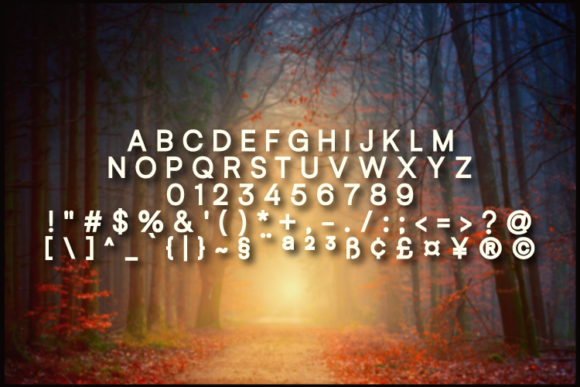
Introduction to Leonare Extra Bold Font
There’s nothing quite like the thrill of finally landing on the perfect font for your creative project. The one that makes your design shine, elevates your message, and leaves a lasting impression on your audience. For designers, the quest for that perfect font is a constant pursuit – one that requires patience, creativity, and a keen eye for detail. And, sometimes, it’s the most unexpected discoveries that lead to the most stunning results.
Enter Leonare Extra Bold Font, a tasteful sans serif font that’s poised to revolutionize your design workflow. With its casual charm and down-to-earth vibe, Leonare Extra Bold Font is the perfect addition to any creative project. Whether you’re working on a high-quality brochure, a sleek website, or a bold social media campaign, Leonare Extra Bold Font is the ideal design resource that will make your work stand out from the crowd.
Key Features of Leonare Extra Bold Font
- High-quality font designed for creative projects, ideal for headings and titles.
- Unique characteristics: geometric shapes, bold lines, and a modern aesthetic, making it perfect for modern design projects.
Honest Review: Leonare Extra Bold Font
I recently had the opportunity to work with the Leonare Extra Bold Font for a creative project, and I must say it’s been a game-changer. This font is perfect for making a statement in any design, whether it’s a logo, poster, or brochure.
- ✨ High-quality typography: The Leonare Extra Bold Font is a premium font that offers a professional and sleek look, making it perfect for any high-end design project.
- ✨ Wide range of uses: From headings to titles, this font is versatile and can be used in a variety of creative ways to enhance any design.
While the Leonare Extra Bold Font is an excellent choice for many designs, there are a few limitations to consider:
- ⚠️ Limited customization options: Unfortunately, this font doesn’t offer a lot of customization options, which may limit its use in certain creative projects.
- ⚠️ Not ideal for transparent backgrounds: Due to its bold design, this font may not be the best choice for designs with transparent backgrounds, as it can be difficult to read.
Overall, I’m thoroughly impressed with the Leonare Extra Bold Font. It’s a high-quality design resource that offers a lot of value for free. With its sleek and professional look, it’s a must-have for any designer looking to elevate their creative projects.
Tips and Use Cases
For optimal results, use the Leonare Extra Bold Font in headings and titles to create visual hierarchy. This font is particularly useful in design projects that require a high-quality, professional look. Consider using it in logos, branding materials, or other creative projects where a bold, eye-catching font is desired.